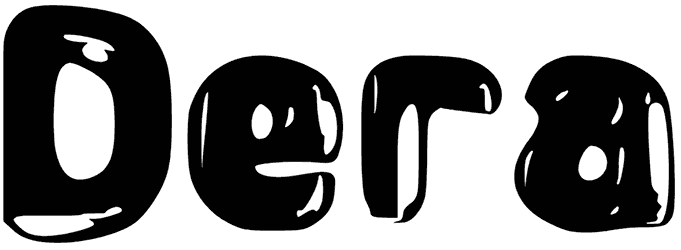
d Dera Font
Because of the soft design of its characters, d Dera gives a modern and relatable look to your texts. All the characters in this balloon font have a bold style with a bubbly and rounded design.
This font can be used for any channel and documentary titles, and cartoonish flyer and banner designs. These kinds of fonts are popular in ice cream shops and children’s playgrounds.